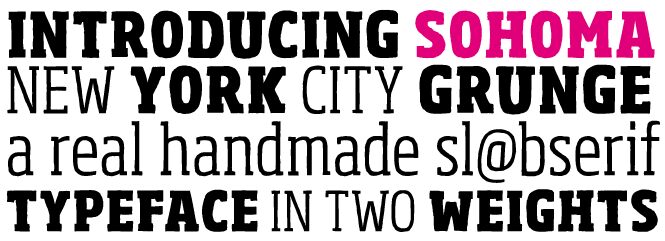
Sohoma Light Condensed, designed by Humberto Gregorio, is a free condensed serif with a tall, eccentric retro profile. Its narrow letters mix broad strokes with hairline details and small, sharply cut serifs. The uneven curves keep it lively.
As a period title face, it can give theater posters and book covers the look of hand-set display type. The stretched proportions and irregular outlines suit boutique packaging and music artwork, where the lettering can echo vintage labels and printed handbills.